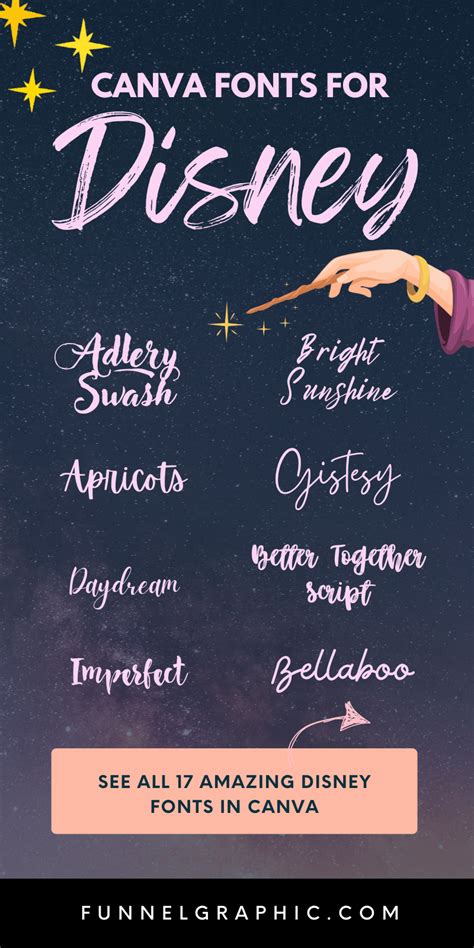
Disney Font In Canva. Web learn how to use the disney font, a custom typeface created for the walt disney company, in your canva designs. Web the disney font is a distinctive and nostalgic font that evokes the enchanting world of disney.
Web learn how to use the disney font, a custom typeface created for the walt disney company, in your canva designs. Web the disney font is a distinctive and nostalgic font that evokes the enchanting world of disney.
Web the disney font is a distinctive and nostalgic font that evokes the enchanting world of disney. Web the disney font is a distinctive and nostalgic font that evokes the enchanting world of disney. Web learn how to use the disney font, a custom typeface created for the walt disney company, in your canva designs.